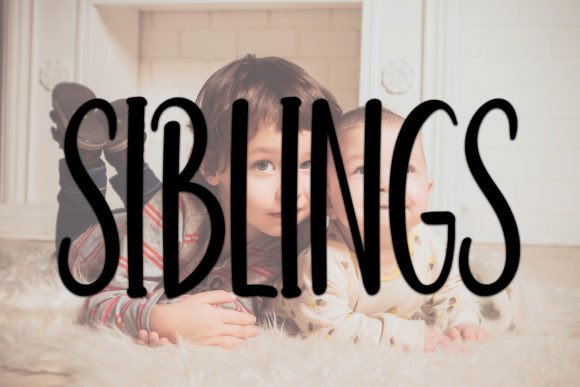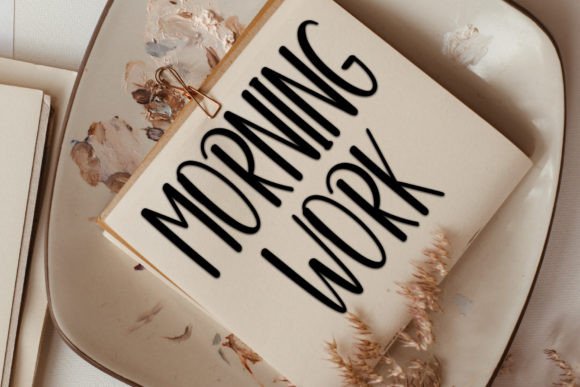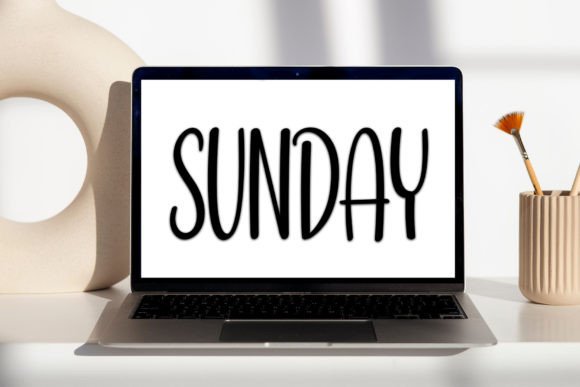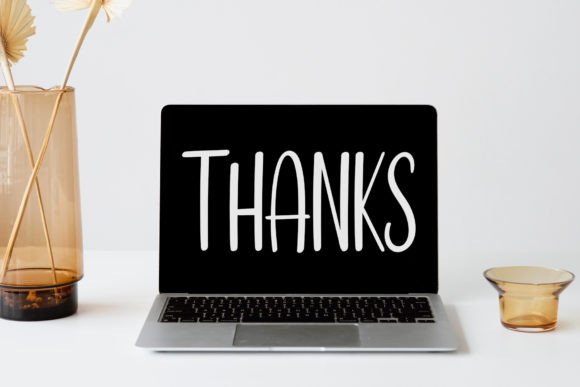
Introducing Autumn Font: Elevate Your Designs with Timeless Elegance
Are you on the hunt for a font that exudes sophistication, elegance, and a touch of classic charm? Look no further than Autumn Font, a stylish handwritten font that brings a contemporary atmosphere to your designs while paying homage to timeless classic calligraphy. With its impeccable form, balanced and varied aesthetic, Autumn Font is the perfect addition to any design project, from crafting beautiful headings to creating stunning text-based art.
The Inspiration Behind Autumn Font
Autumn Font draws inspiration from the world of classic calligraphy, where the art of beautiful handwriting meets the precision of typography. The result is a font that not only captures the essence of traditional calligraphy but also infuses it with a modern twist, making it perfect for designers and crafters looking for a unique and sophisticated look.
Key Features of Autumn Font
- Balanced and Varied: The font features a balanced and varied design, ensuring that your text remains legible and visually appealing, even at smaller sizes.
- Contemporary Atmosphere: Despite being inspired by classic calligraphy, Autumn Font boasts a contemporary atmosphere that will make your designs stand out in any context.
- Impeccable Form: Each letterform in Autumn Font has been meticulously crafted to ensure that it is not only beautiful but also perfectly proportioned.
Why Choose Autumn Font?
There are countless reasons why Autumn Font should be your go-to choice for your next design project. Here are just a few:
- Enhance Your Projects: With Autumn Font, you can add a touch of elegance and sophistication to any project, from digital designs to print materials.
- Versatility: This font is incredibly versatile, suitable for a wide range of applications, including headings, titles, quotes, and more.
- Unique and Memorable: In a world filled with generic fonts, Autumn Font offers a unique and memorable look that will set your designs apart from the competition.
Using Autumn Font in Your Designs
Autumn Font is incredibly easy to use, even for those who are new to font design. Here are some tips to get you started:
- Pair it with Other Fonts: Experiment with pairing Autumn Font with other fonts to create stunning contrast and visual interest.
- Play with Ligatures: Take advantage of the font’s ligatures to add a touch of elegance and whimsy to your designs.
- Adjust and Customize: Don’t be afraid to experiment with different sizes, colors, and styles to make Autumn Font truly your own.